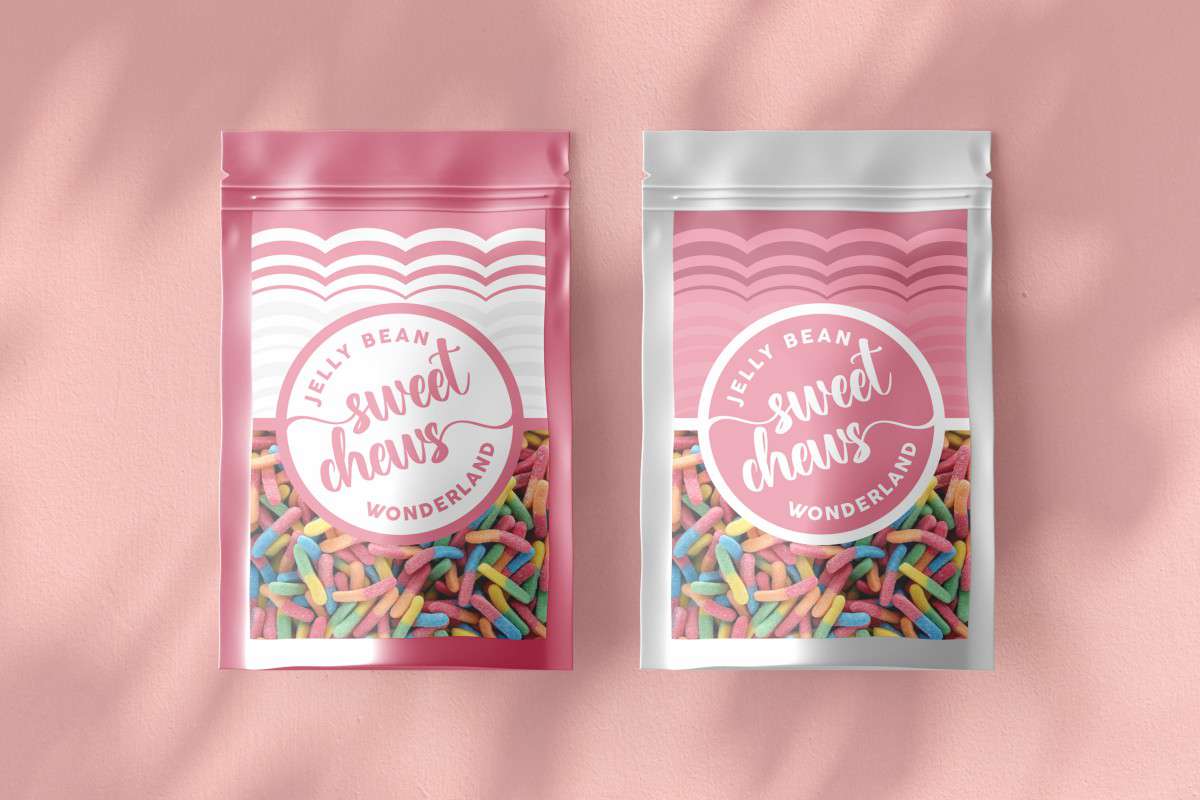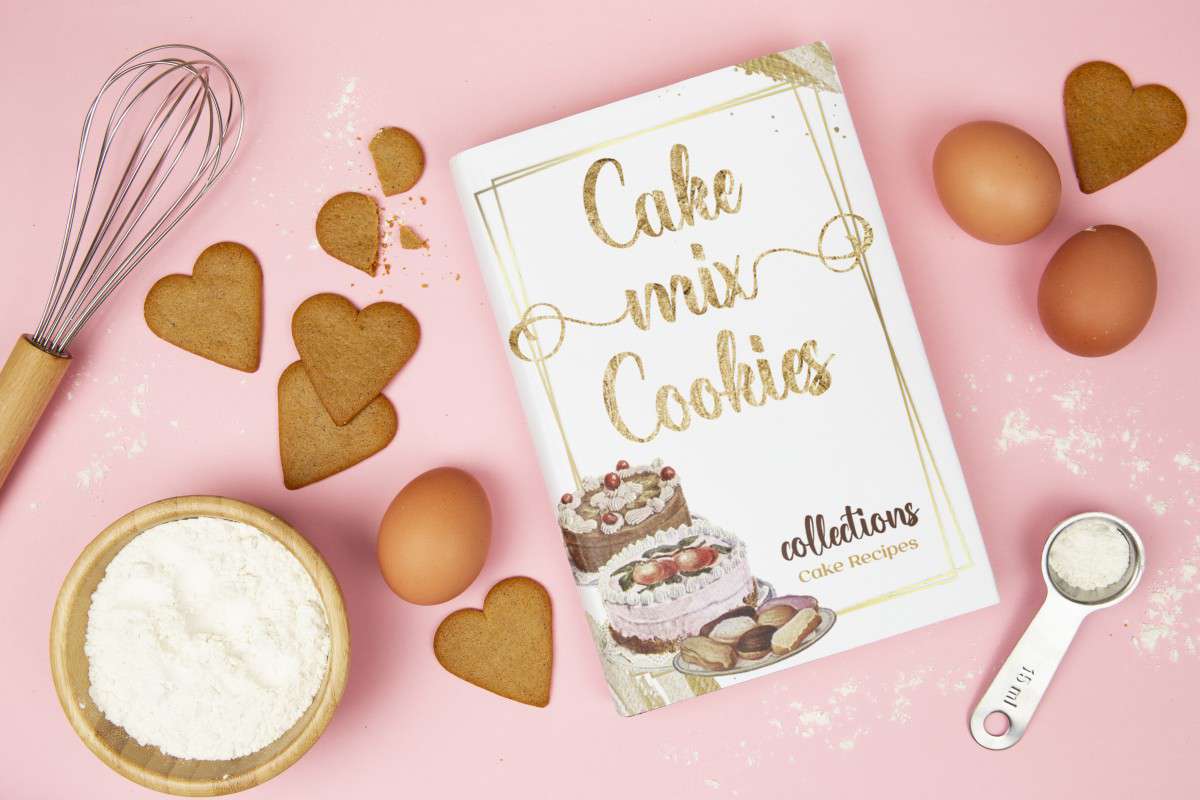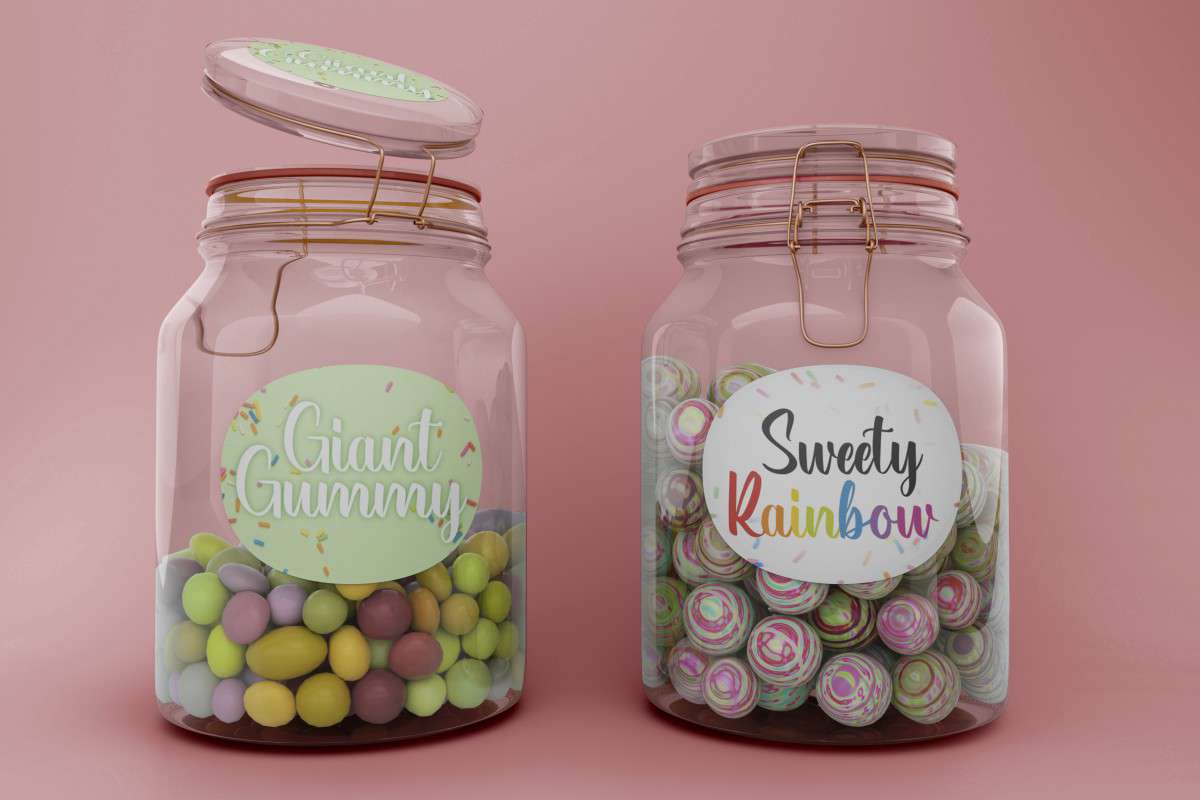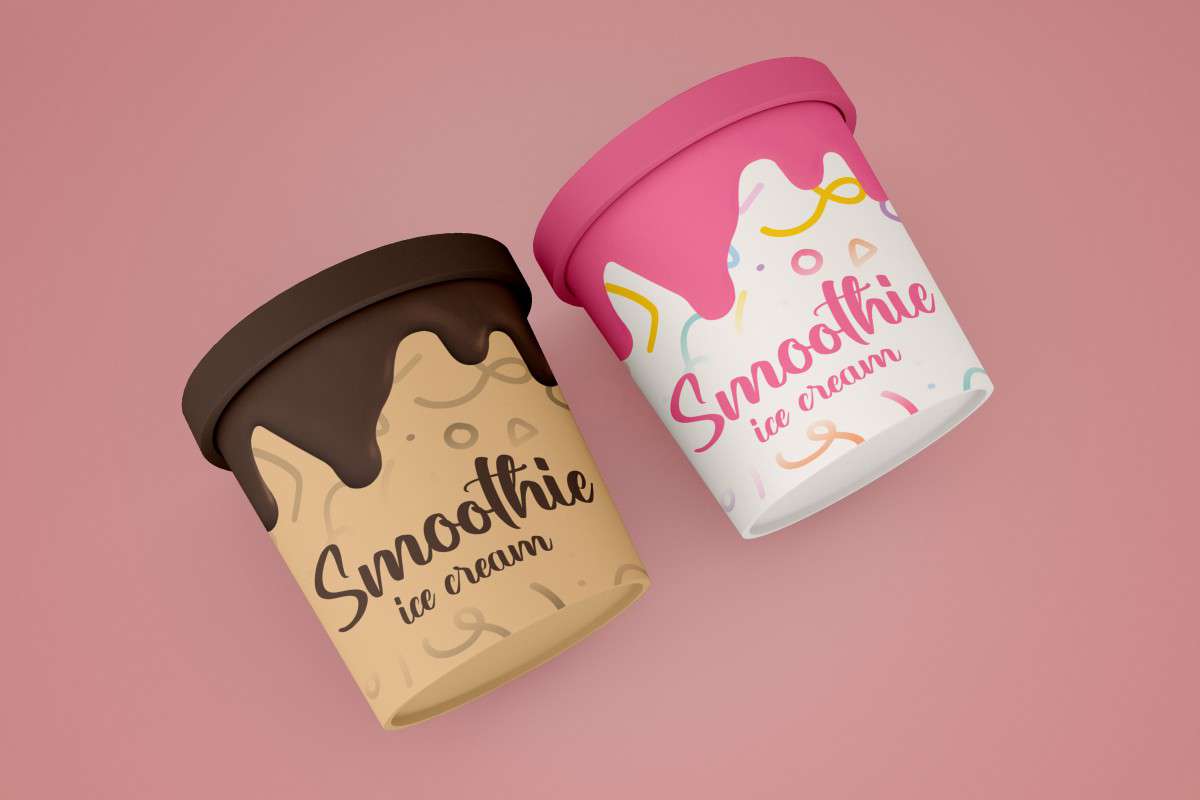
Candy Nougat Font
Candy Nougat Font is a calligraphy font which is combining modern and classic typography with beautiful look. This font is crafted carefully in every its single letter so we can make sure it has great looking, inspired by the handwriting of Italian women and ancient manuscripts. Carefully designed to work together in harmony and This one should make your designs instantly professional and jaw-dropping!
Candy Nougat Font includes full set of Uppercase and Lowercase Basic Characters, Numerals and Punctuation. Also it contains variety of swash beautify the look of calligraphy and ligatures to make it flowless characters to perfectly make awesome look that add more aesthetic fonts to perfect your extraordinary project. Many industries will suit this font great including invitation, wedding, bakery, candy shop, feminine touch, florist, videography etc